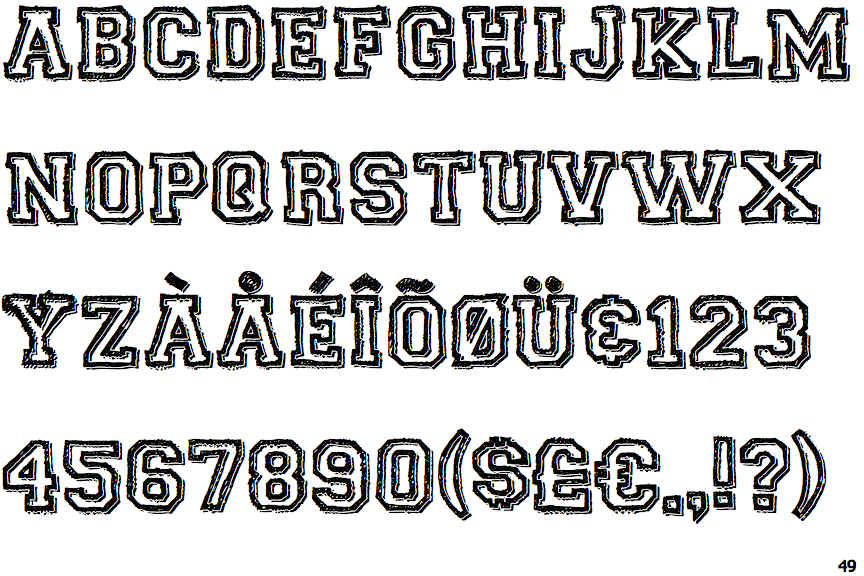
College Dropout Senior Font - Its ideal use is as a display font. Download and install the college. Web college dropout by xerographer fonts. Web college dropout senior font style by open window. 83,077 downloads (1 yesterday) 2 comments donationware.
College Dropout Senior Font - Download and install the college. Includes 1 font style from $19.95. Download—the font meta search engine with more than 50,000 font styles to find and order. Web college dropout by xerographer fonts. Web latest from the whatfontis forum.
College Dropout Senior Font - Web college dropout by xerographer fonts. Download—the font meta search engine with more than 50,000 font styles to find and order. Web licensed for commercial use. Web latest from the whatfontis forum. Includes 1 font style from $19.95.
College Dropout Senior Font - Web college dropout senior font style by open window. Web licensed for commercial use. Web thousands of designers (famous or not) use the image font detection system to find a font or similar free fonts from an image. Its ideal use is as a display font. Web college dropout by xerographer fonts.
College Dropout Senior Font - Web college dropout by xerographer fonts. Includes 1 font style from $19.95. Download—the font meta search engine with more than 50,000 font styles to find and order. Download and install the college. Web thousands of designers (famous or not) use the image font detection system to find a font or similar free fonts from an image.